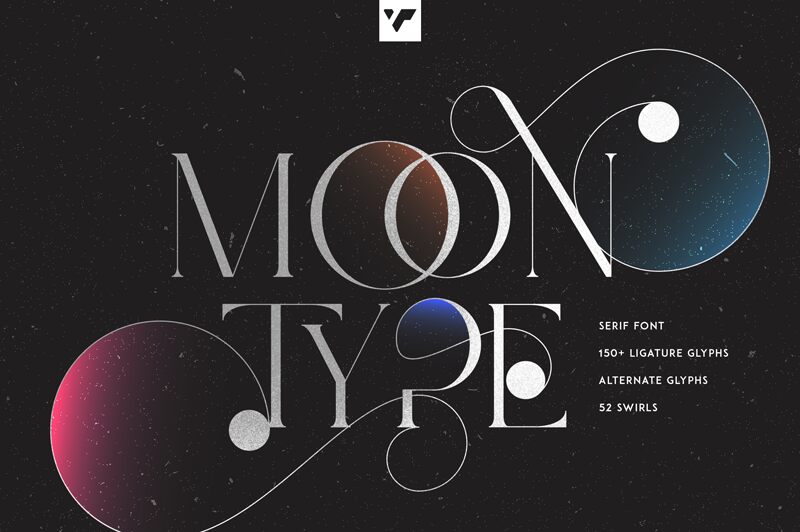
Moon Type font by VPcreativeshop is a free font elegant serif font. Its luxurious yet modern flair appears in its delicate and visually intriguing shape, making this typeface a sophisticated tool to include in your design. The moon truly affects the tides of what you can create, offering an elevated experience with its ethereal touch that’s best experienced when texts in small and large sizes and sentences are shared.
An artistic contemporary design is where this serif thunder shines best, and it’s where it’ll appear suitable. Brands and other similar establishments can use Moon Type to engage their audience, especially when used alongside a soothing palette. This font can be wonderful for editorial purposes as well, used for magazines, fashion-related establishments, and articles. Preparing classic books is a wonderful project, but this font can look just as spectacular when used for the covers of e-books and other e-platforms.